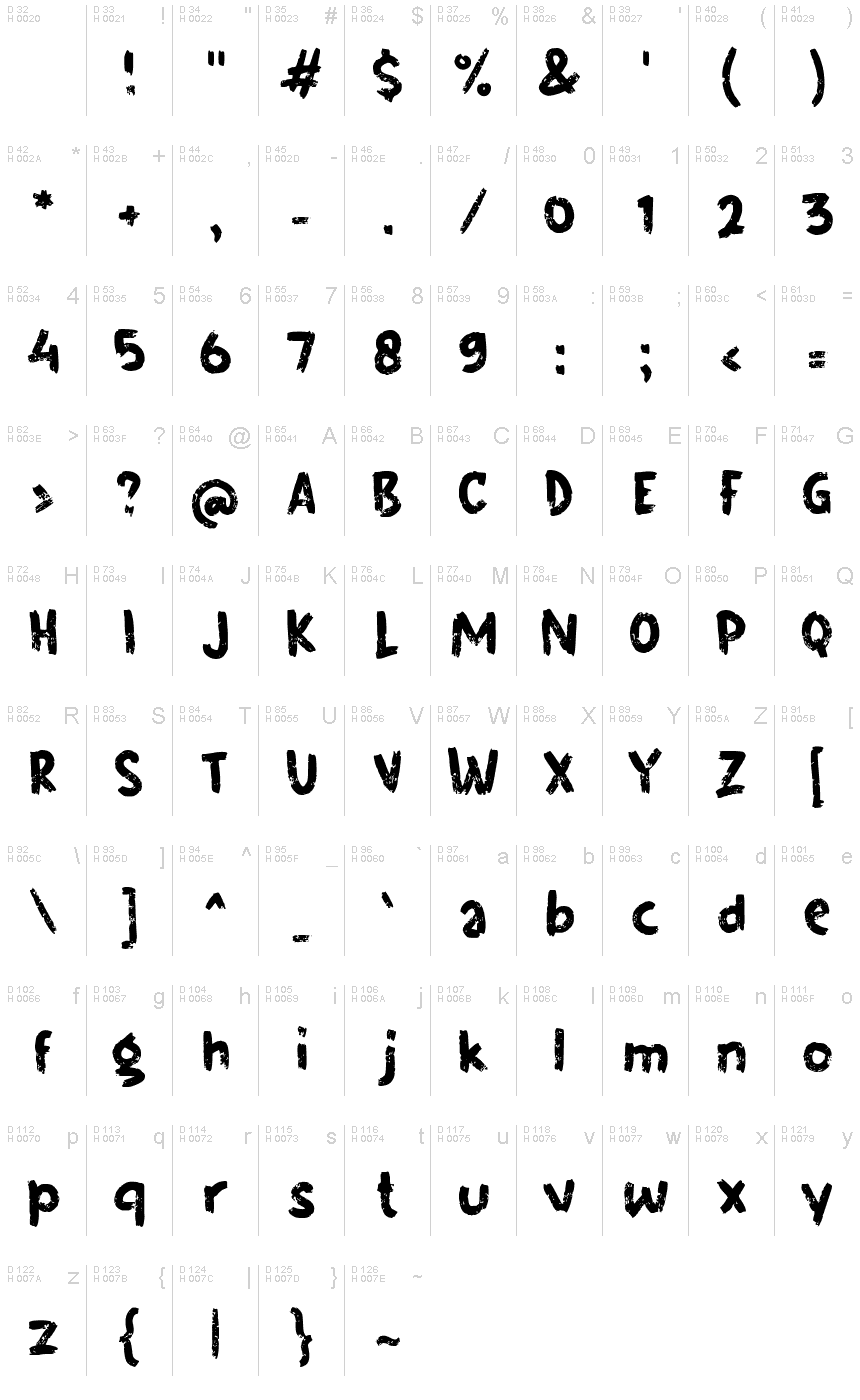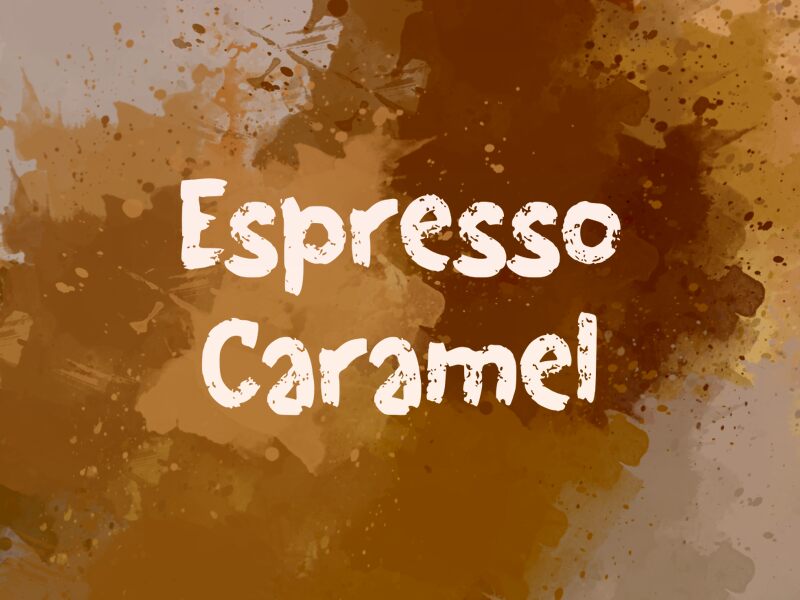
Espresso Caramel
Espresso Caramel, designed by wep, is a bold brush font that adds a touch of warmth and energy to any project. With its expressive strokes and unique texture, this versatile typeface is perfect for food blogs, coffee shop menus, artisanal brands, and trendy lifestyle magazines. Whether you're designing logo headlines or crafting eye-catching packaging, Espresso Caramel will infuse your creations with a deliciously captivating aesthetic. Its bold weight exudes confidence while maintaining legibility, making it an excellent choice for impactful titles on posters, social media graphics, or branding materials. Elevate your designs with Espresso Caramel's irresistible charm and let the words come alive!